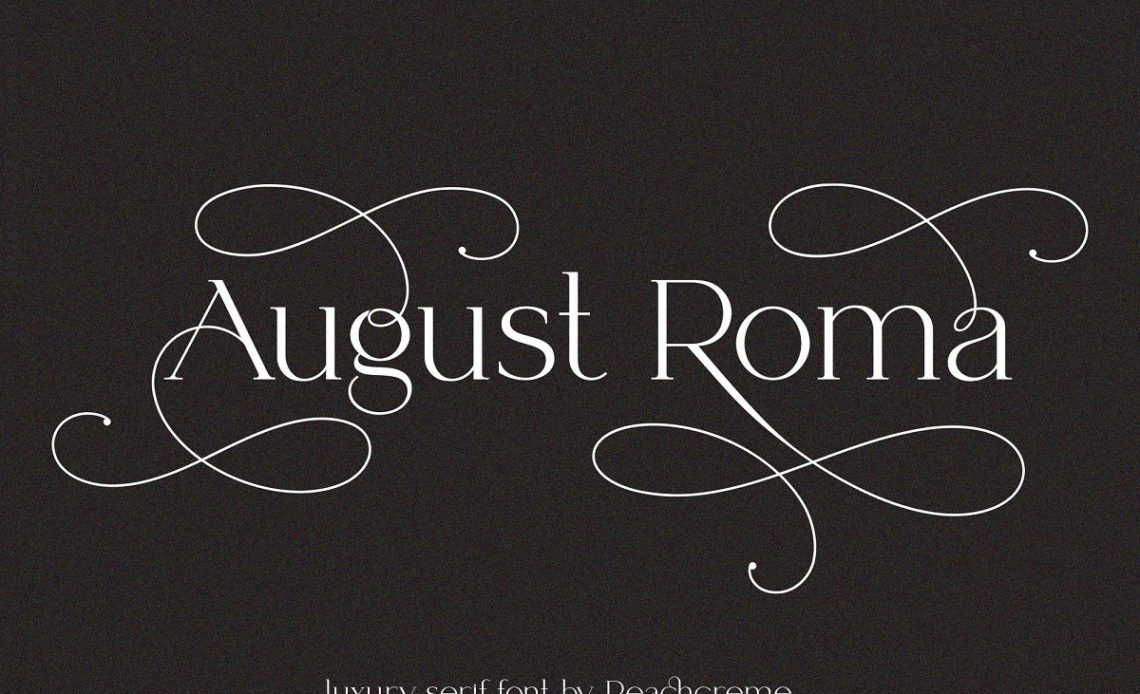
Looking for a luxurious serif font that's perfect for your wedding labels? Look no further than August Roma, created by PeachCreme. This elegant font is part of a duo that's sure to be your new favorite.
August Roma Serif is perfect for creating stunning branding, sleek wedding invites, versatile holiday cards, and sweet book covers. It has all the uppercase, lowercase, ampersand, and numeral swashes you could need to create a truly unique design.